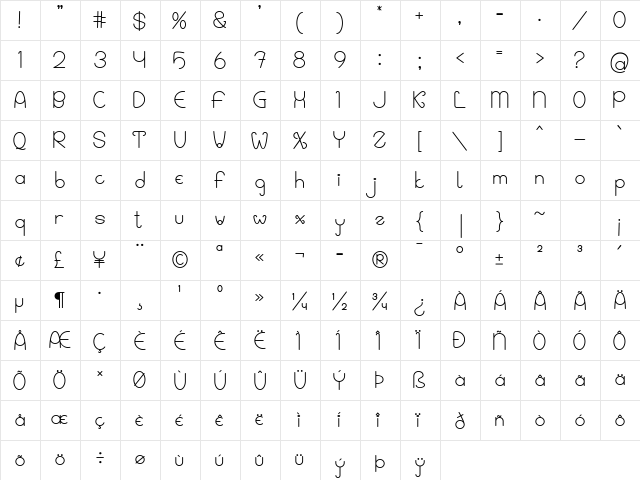
Cleandro Regular
| Designer | Sungi Creative |
Design Context for Cleandro Typeface
Cleandro takes a measured approach to typography — its balanced proportions and neutral character make it a reliable workhorse for both digital and print work.